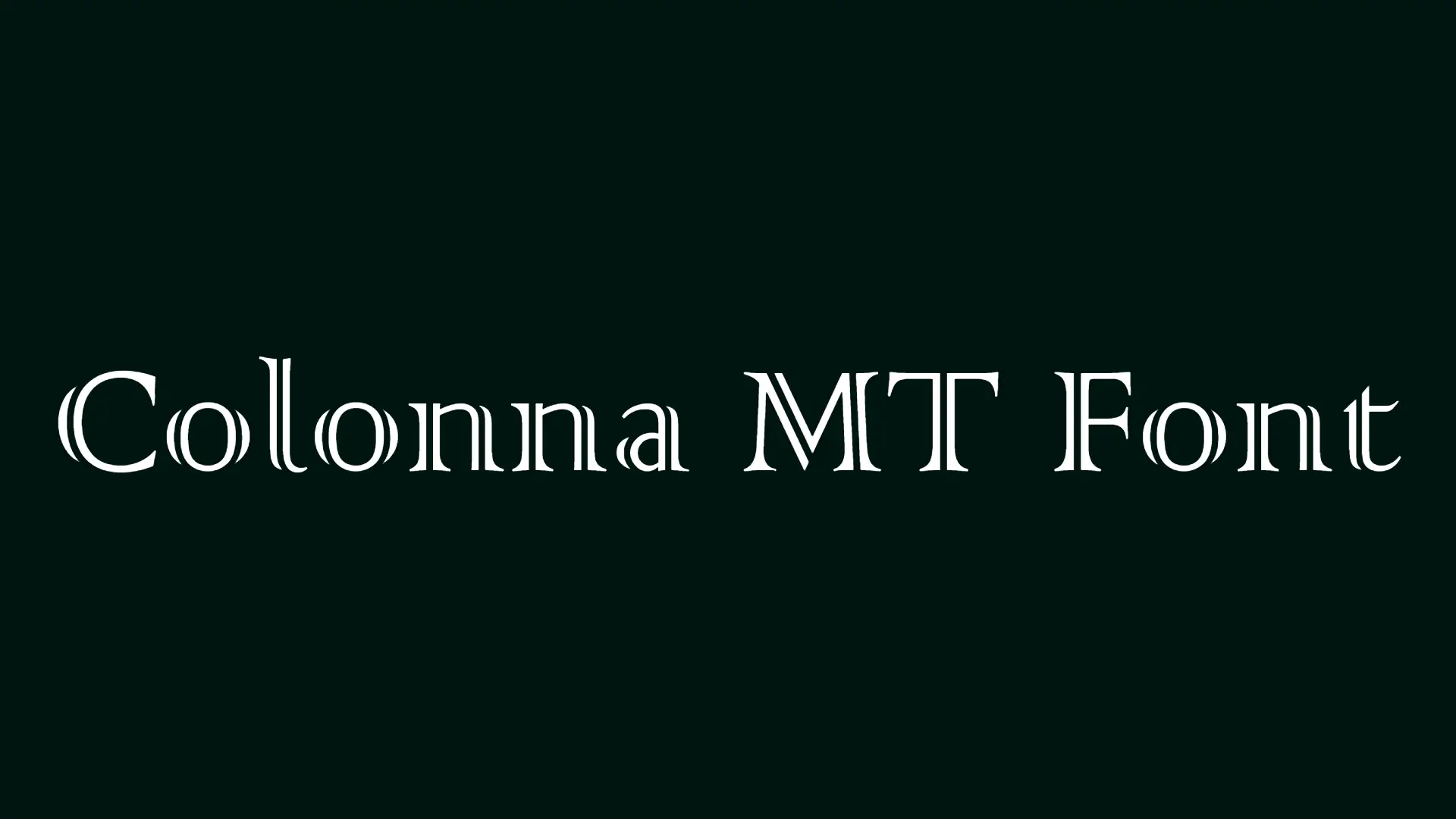
Colonna MT Font
Colonna MT
You get every letter from A to Z in both cases and all the numbers from 0 to 9, which means Colonna MT can handle full sentences, dates and prices. Everyday marks like &, !, ? and @ are there too. Thanks to its accented letters, it also works for Spanish, French, German, Portuguese and Italian, not just English.
Colonna MT is a natural fit for everyday text, websites and clean logos. Fonts like this are workhorses: use them for body text, captions and anything people need to read quickly.
Yes. Colonna MT includes the accented letters needed for Spanish, French, German, Portuguese and Italian, so it works for more than just English.
Add a more decorative display font for the headline if your design needs extra personality.